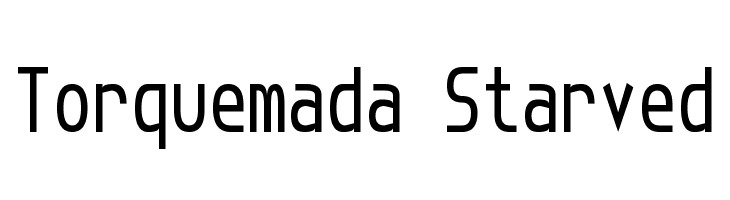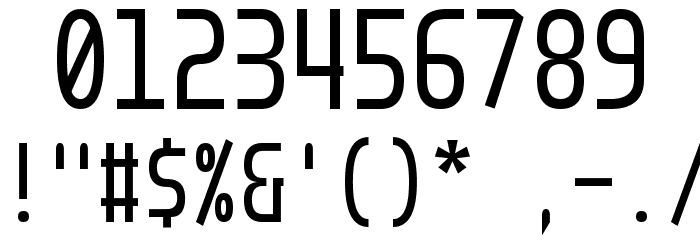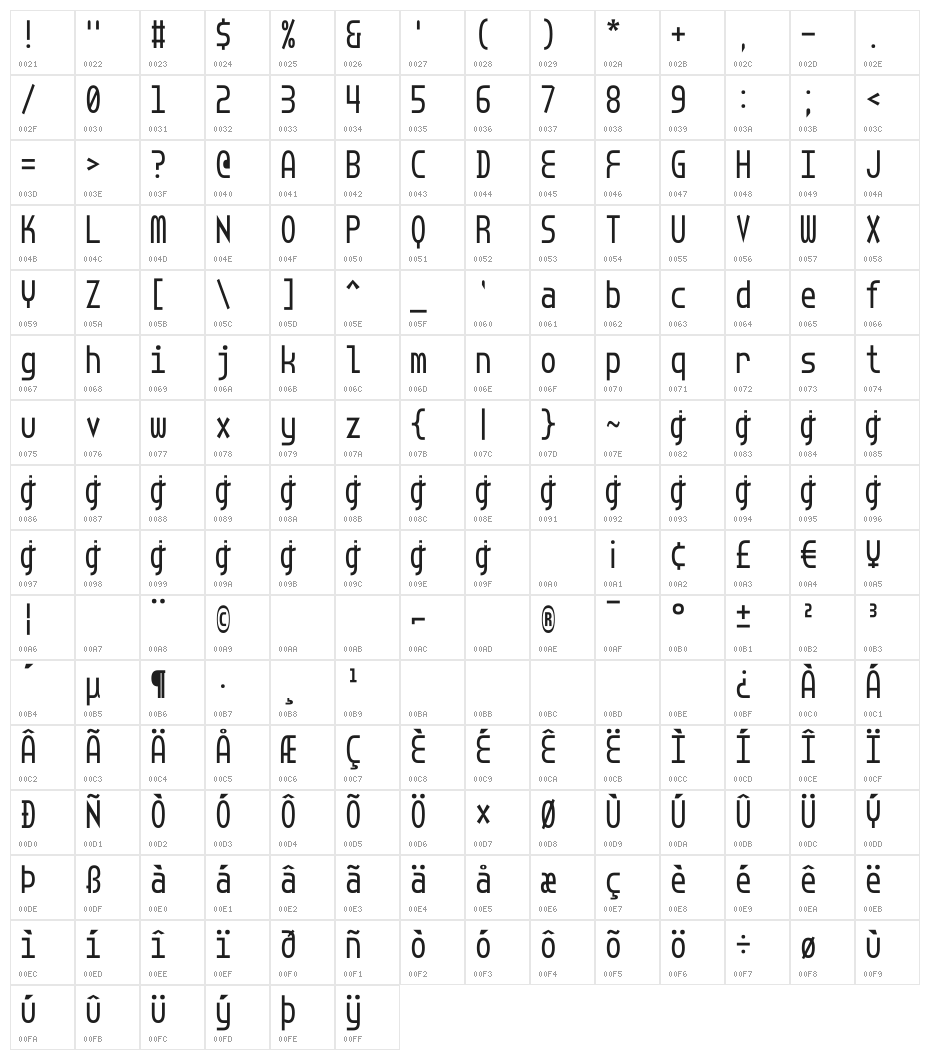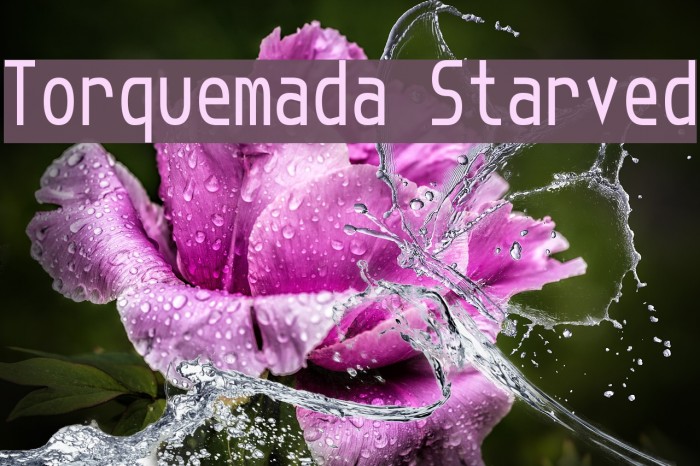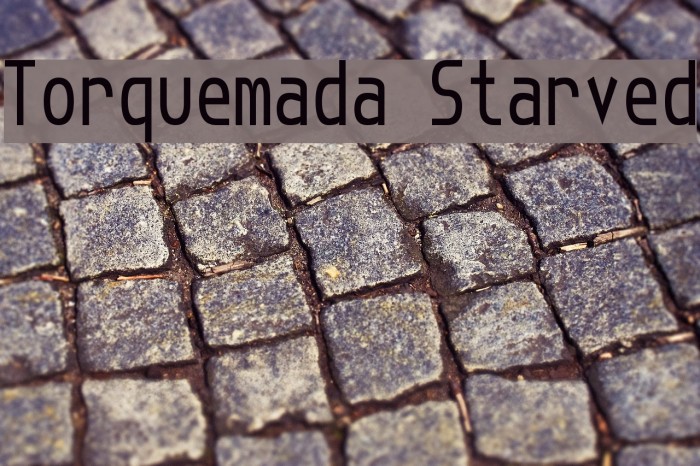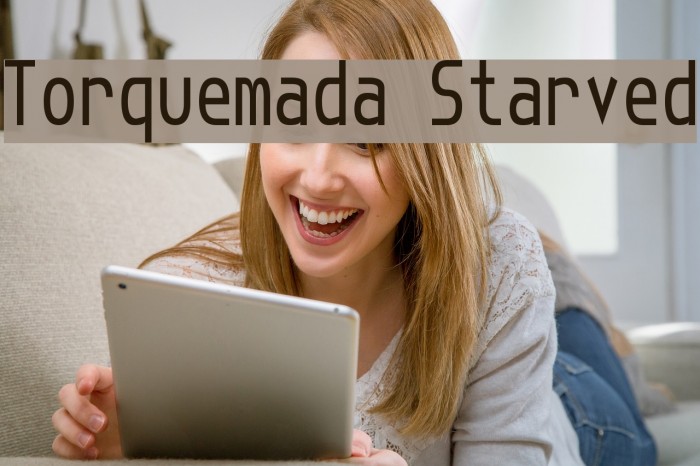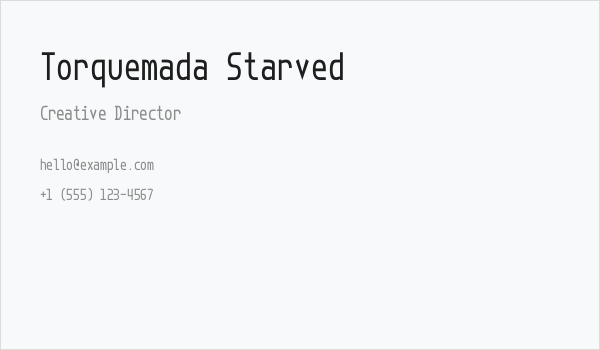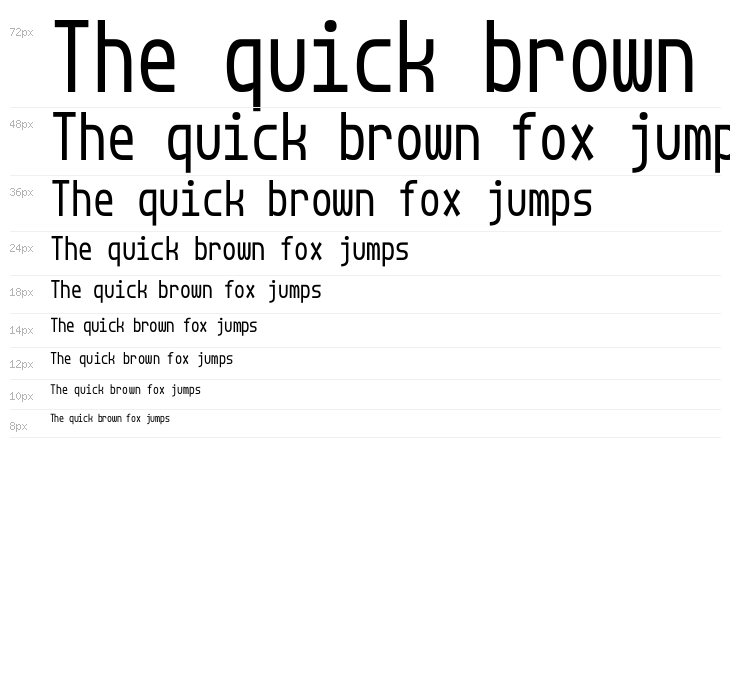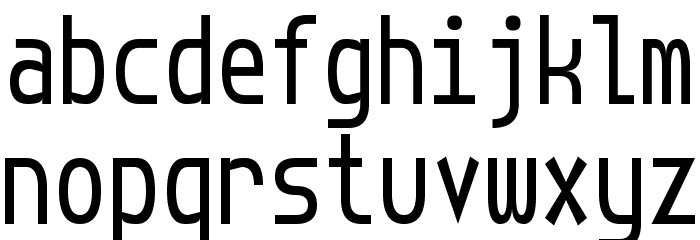
Torquemada Starved Font
Torquemada Starved Description
This font features a modern, geometric design with clean lines and a minimalist aesthetic. The characters are uniformly structured, exhibiting a consistent stroke width that contributes to a sleek and contemporary appearance. The uppercase letters are bold and assertive, while the lowercase letters maintain a balanced and harmonious look. The numerals are clear and legible, making them suitable for various applications. Special characters are distinct and well-defined, enhancing the font's versatility. Overall, this font exudes a sense of precision and clarity, making it ideal for modern design projects.